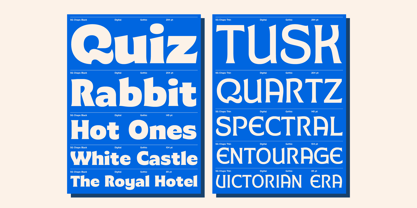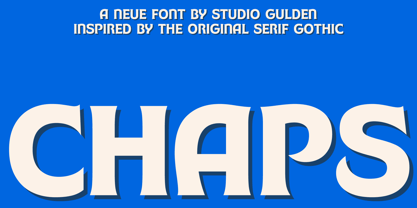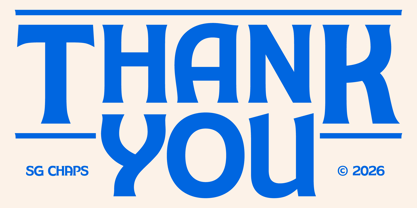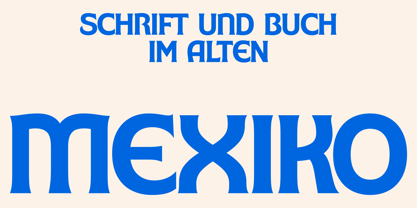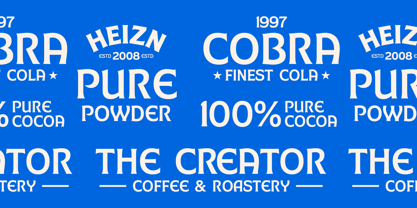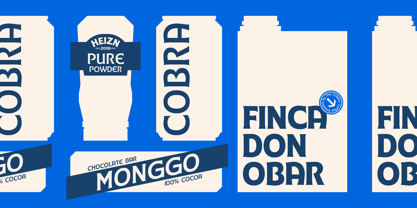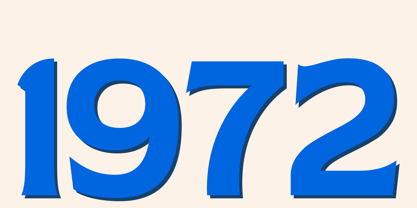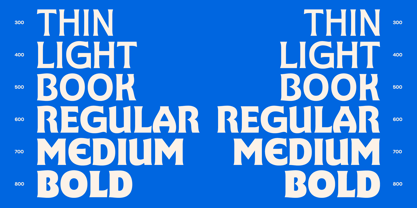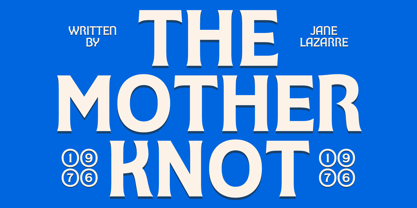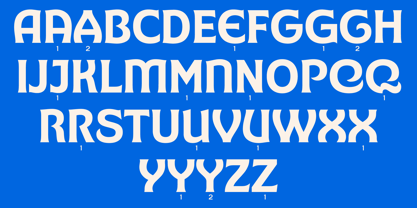
SG Chaps
by Studio Gulden
The SG Chaps Font Family was designed by Umar Al Farouq, Jodi El Ghazi and published by Studio Gulden. SG Chaps contains 6 styles and family package options. More about this family
SG Chaps is a striking, high-impact serif gothic-inspired typeface that effortlessly bridges the gap between mid-century editorial heritage and cutting-edge modern branding. Engineered to command attention while maintaining immaculate legibility, this typeface gives designers a powerful, expressive tool for projects that demand to be both seen and remembered. Whether you are crafting an unforgettable identity, executing a bold packaging concept, or building a high-contrast web experience, SG Chaps delivers instant character, undeniable visual weight, and premium typographic versatility right out of the box.
Born from a deep appreciation for the robust, geometric warmth of classic Serif Gothic type designs, SG Chaps is a modern reimagining built for the demands of the digital age. Its construction balances sharp, structural geometry with fluid, expressive curves—visible in its distinctive flared terminals, tight counter-spaces, and characteristic alternate letterforms. The typeface exudes a confident, rebellious, yet sophisticated mood, channeling a sense of 1970s editorial grit while looking entirely forward-facing. It speaks with an authoritative, graphic voice that is rich in texture, making every layout look meticulously customized and charged with personality.
SG Chaps is meticulously crafted for branding professionals, editorial designers, packaging specialists, and creative directors who refuse to settle for the mundane. Its expressive architecture makes it an ideal choice for high-visibility applications, including bold editorial headlines, cinematic title design, striking poster layouts, apparel branding, and logos. The heavier weights command massive retail presence on consumer goods and food packaging, while the lighter weights introduce an elegant, structured flair to digital interfaces, UI/UX hero sections, and corporate storytelling. It is a true chameleon that transitions seamlessly from raw indie-cool to high-end luxury.
Feature Breakdown
• 6 Versatile Weights: Spanning seamlessly from a delicate, structural Thin to a massive, ultra-solid Bold to suit any visual hierarchy.
• Serif Gothic-Inspired Geometry: A unique hybrid aesthetic blending the clean lines of sans-serifs with the expressive character of classic gothic serifs.
• Expansive Glyphs Library: Packed with 889 glyphs per style, offering an extensive toolkit of alternates, ligatures, and symbols for ultimate creative control.
• Expressive Character Alternates: Features unique uppercase variants with dramatic curves and stylistic alternates (such as the distinctively dynamic 'M', 'E', and 'X') for custom logotype creation.
• Built-in Icon & Arrow Sets: Includes a curated collection of matching directional arrows and geometric symbols designed to integrate flawlessly into environmental signage and wayfinding.
• Proportional Number Sets: Features beautifully weighted lining and tabular figures optimized for both editorial layouts and packaging details.
• Global Language Support: Equipped with extended Latin character sets to ensure seamless cross-border communication.